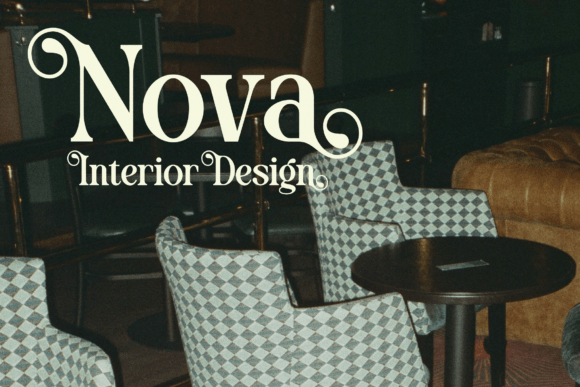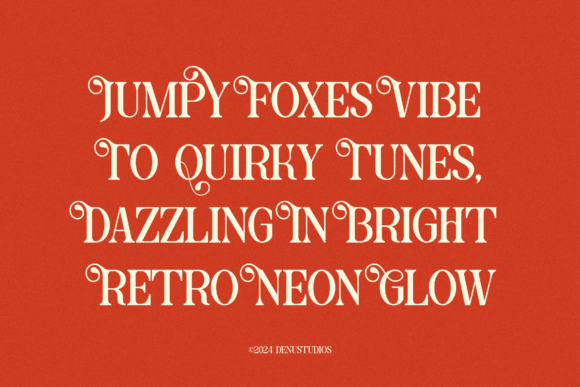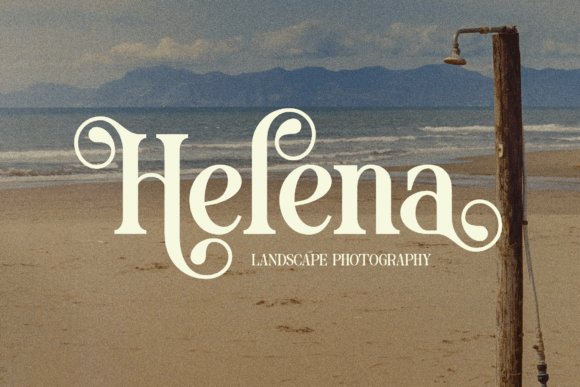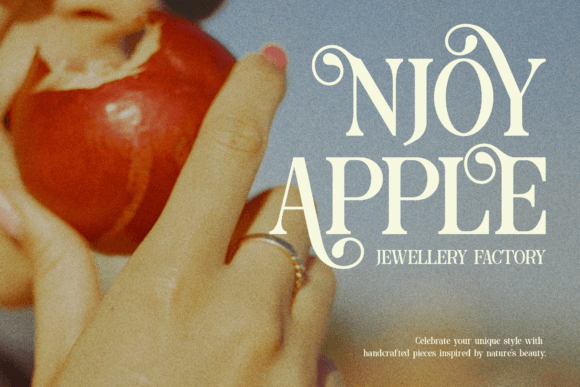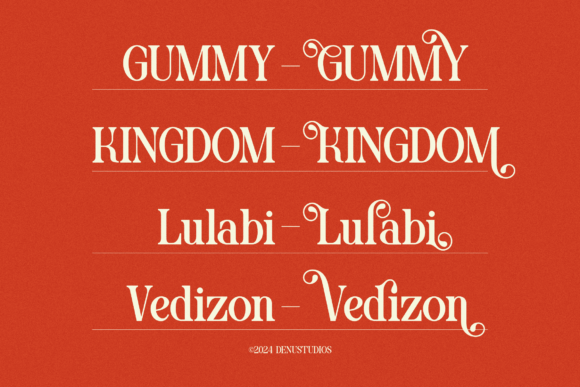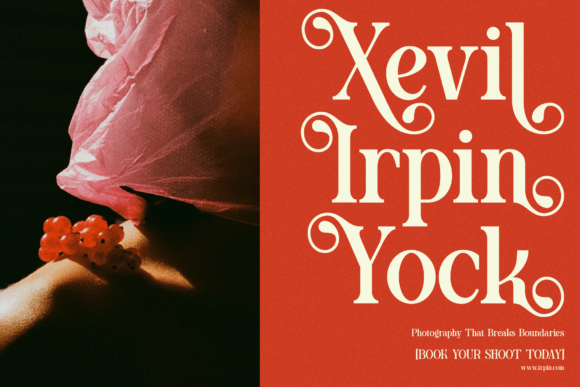
Introducing Blind Hojil: The Ultimate Display Serif Font for Creative Projects
Are you a designer or crafter looking for a font that exudes elegance and sophistication? Look no further than Blind Hojil, a bold and elegant serif font that’s perfect for a wide range of creative projects. In this article, we’ll explore the features and benefits of Blind Hojil, and show you how it can elevate your designs to the next level.
What is Blind Hojil?
Blind Hojil is a display serif font that’s designed to make a statement. Its bold and elegant design makes it perfect for projects that require a touch of sophistication and luxury. The font features classic serif elements, with clean lines and a refined aesthetic that’s sure to impress.
What Projects is Blind Hojil Suitable For?
Blind Hojil is an incredibly versatile font that can be used for a wide range of projects, including:
- Logos and branding projects: Create a lasting impression with a bold and elegant logo that sets your brand apart.
- Homeware designs: Add a touch of sophistication to your homeware designs, from ceramics to textiles.
- Product packaging: Make your products stand out on store shelves with eye-catching packaging that features Blind Hojil.
- Mugs and drinkware: Create unique and stylish mugs, water bottles, and other drinkware with Blind Hojil.
- Quotes and posters: Add a touch of elegance to your quotes and posters with a font that’s both bold and refined.
- Shopping bags: Create stylish and reusable shopping bags that feature your brand’s logo or message.
- T-shirts and apparel: Design stylish and eye-catching t-shirts, hoodies, and other apparel with Blind Hojil.
- Book covers and publishing: Create stunning book covers that grab readers’ attention with Blind Hojil.
- Name cards and invitation cards: Add a touch of sophistication to your name cards, invitation cards, and greeting cards.
- Labels and watermarks: Use Blind Hojil for labels, watermarks, and other design elements that require a touch of elegance.
- Special events: Create stunning designs for special events, such as weddings, conferences, and festivals.
Why Choose Blind Hojil?
So why choose Blind Hojil for your creative projects? Here are just a few reasons:
- Elegant and sophisticated: Blind Hojil features a classic serif design that’s both elegant and sophisticated.
- Versatile: Blind Hojil can be used for a wide range of projects, from logos and branding to book covers and apparel.
- Easy to read: Despite its bold design, Blind Hojil is easy to read, even at smaller sizes.
- Unique: Blind Hojil is a unique font that will help your designs stand out from the crowd.
Tips for Using Blind Hojil
Here are a few tips for getting the most out of Blind Hojil:
- Use it boldly: Blind Hojil is a bold font, so don’t be afraid to use it boldly and make a statement.
- Experiment with colors: Blind Hojil looks great in a range of colors, so experiment with different colors to find the one that works best for your project.
- Pair it with other fonts: Blind Hojil can be paired with other fonts to create a unique and interesting design.